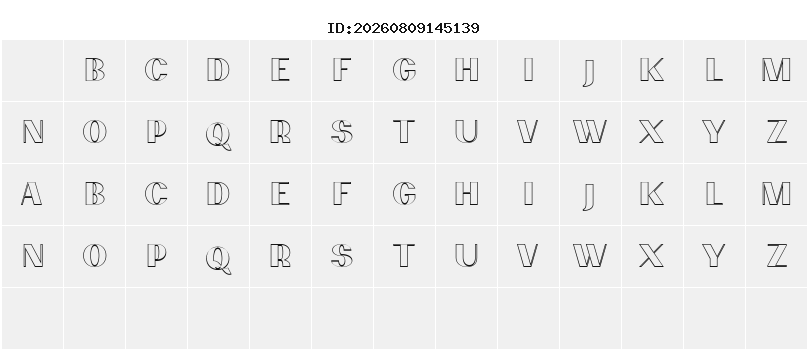
PassionSansPDcb Preview
• Font Name: PassionSansPDcb
• Font Style: OutlineHeavy
• Manufacturer: Prescott Design
About PassionSansPDcb.ttf
PassionSansPDcb.ttf is a modern, elegant sans-serif font designed for ultimate readability and visual harmony. Perfect for branding, headlines, web design, and print materials.